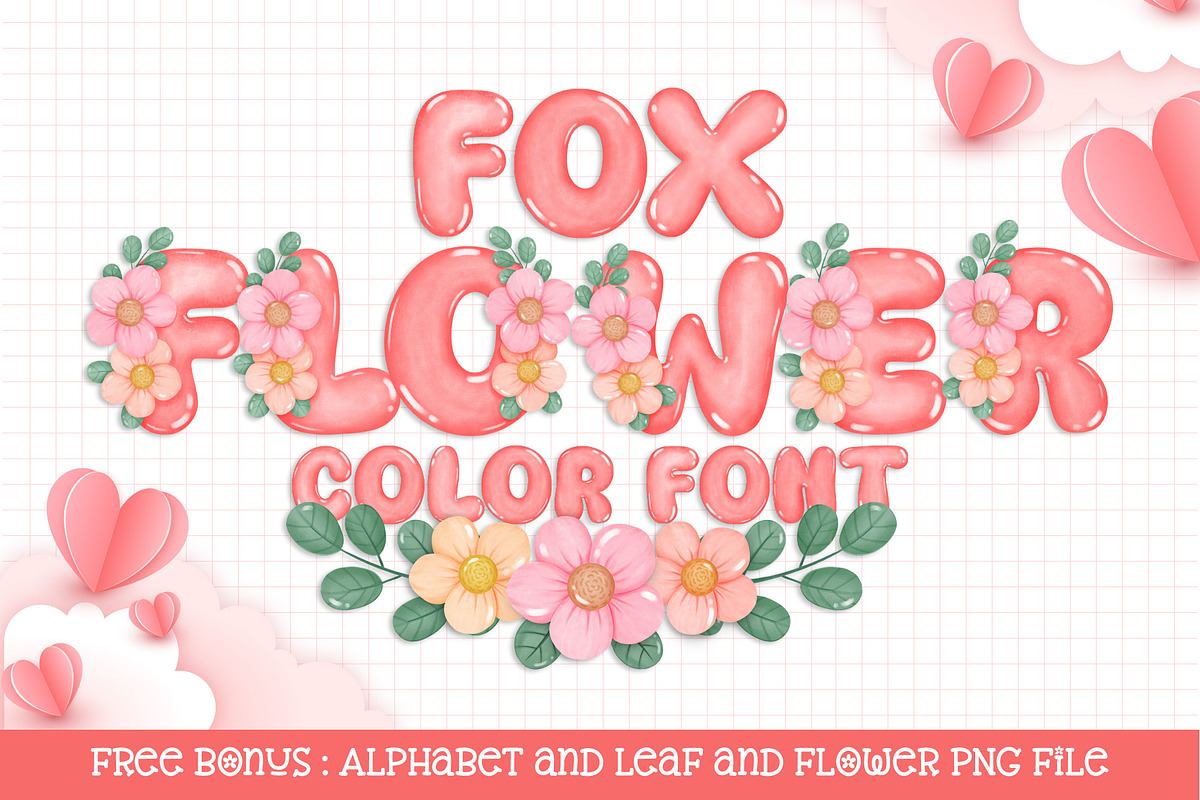
Fox Flower Color Font Free Download is a vibrant and playful typeface that incorporates colorful floral elements, making it perfect for creative projects that need a touch of whimsy and nature. Designed to add a colorful, artistic feel, this font works well for greeting cards, wedding invitations, children's projects, branding, and any design that benefits from a fun, hand-crafted aesthetic.
As a color font (SVG), it maintains the intricate details of the floral illustrations within each letter, offering a unique, artistic flair that traditional fonts cannot achieve. It’s ideal for projects where the typography needs to be both a visual centerpiece and a source of inspiration.